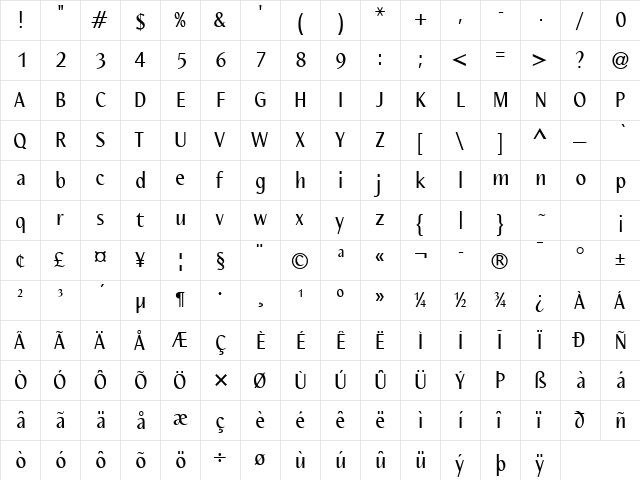
Nautilus LT Roman Regular
Design Context for Nautilus LT Roman Typeface
Nautilus LT Roman is a composed and adaptable typeface that performs quietly and consistently across a wide range of design contexts. Its slender proportions lend an understated elegance to any composition.